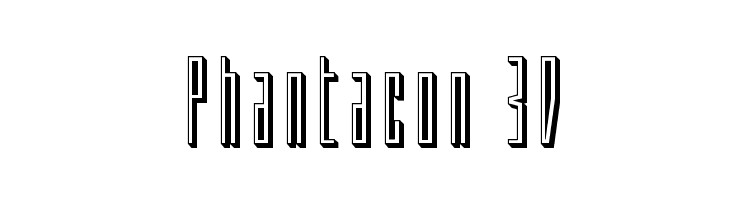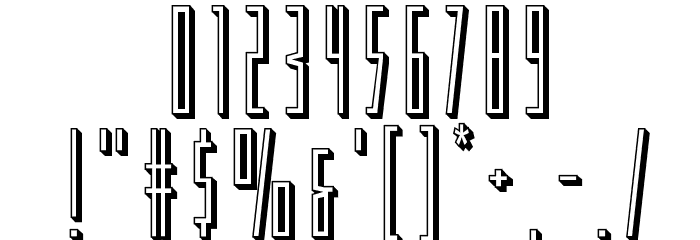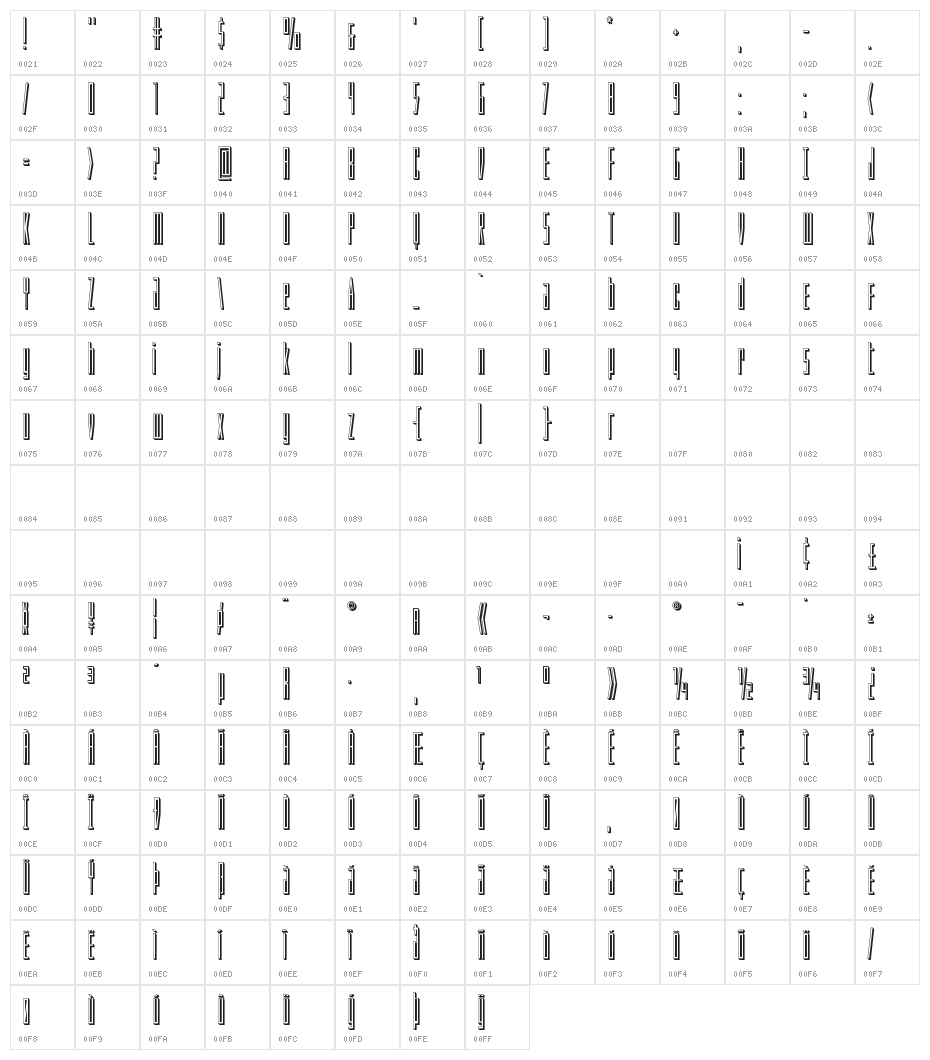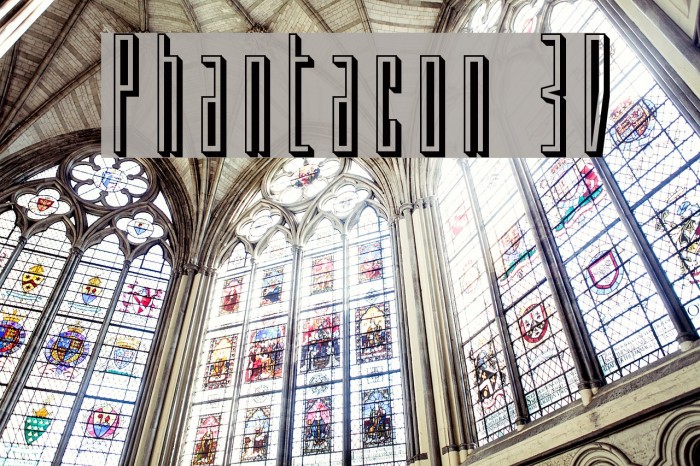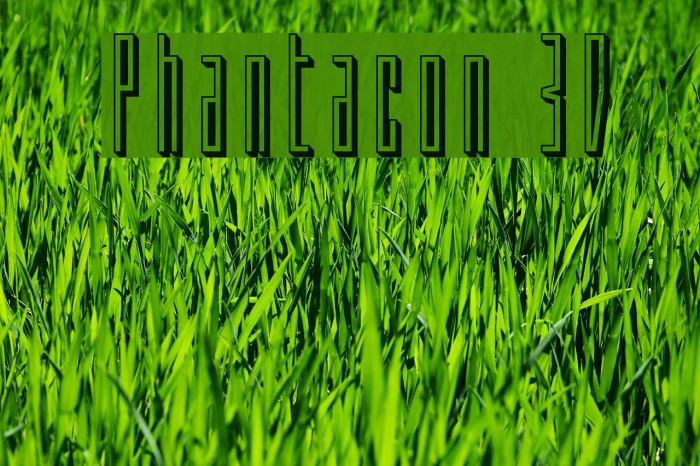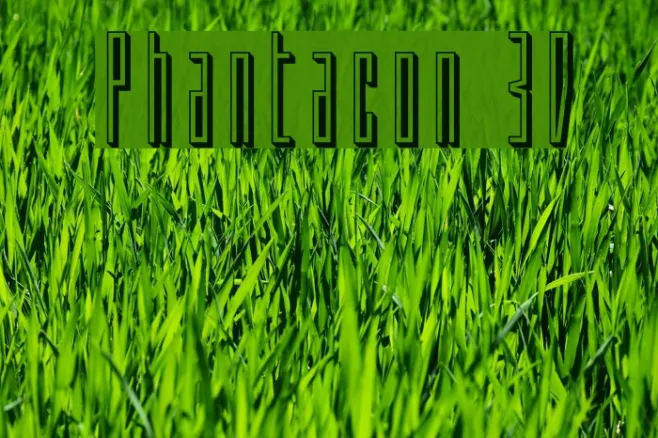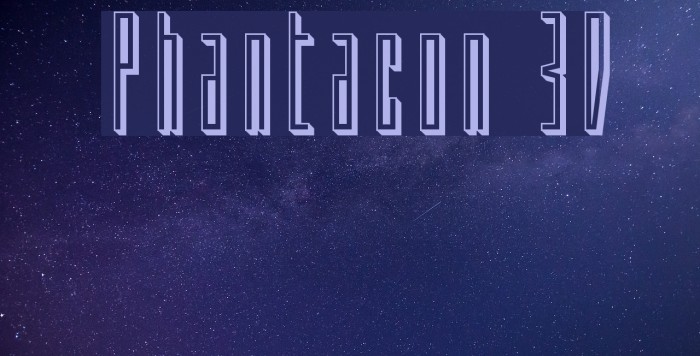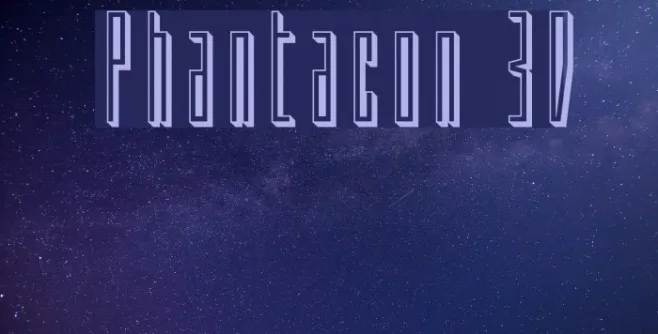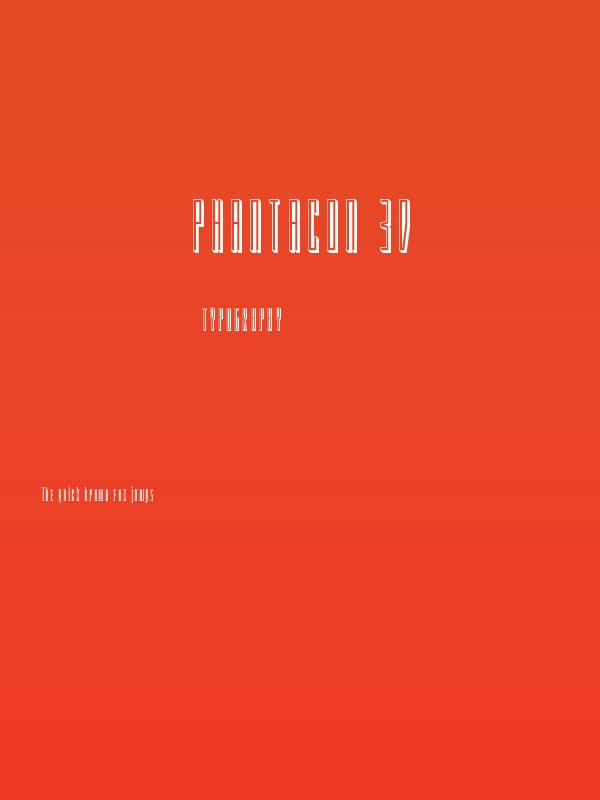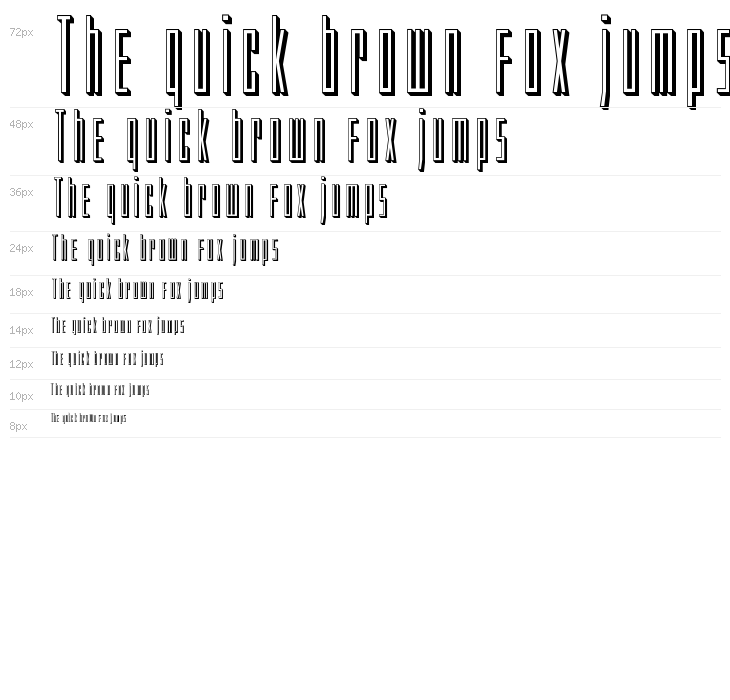
Phantacon 3D Font
Phantacon 3D Description
This font features a bold, futuristic design with a 3D effect that gives it a unique, eye-catching appearance. The characters are tall and narrow, with sharp angles and clean lines that create a sense of depth and dimension. The uppercase and lowercase letters maintain a consistent style, while the numbers and special characters complement the overall aesthetic. The font's geometric structure and shadowing effect make it ideal for projects that require a modern and dynamic look.
| Proposed Projects | Ideal for sci-fi themed posters, video game titles, and modern branding projects. |